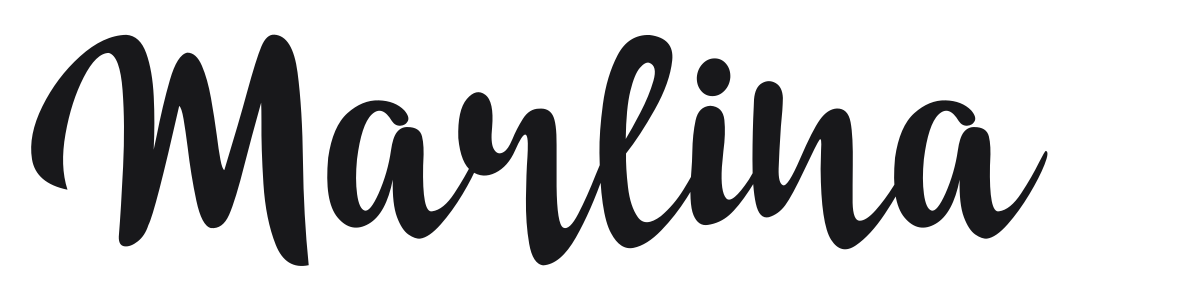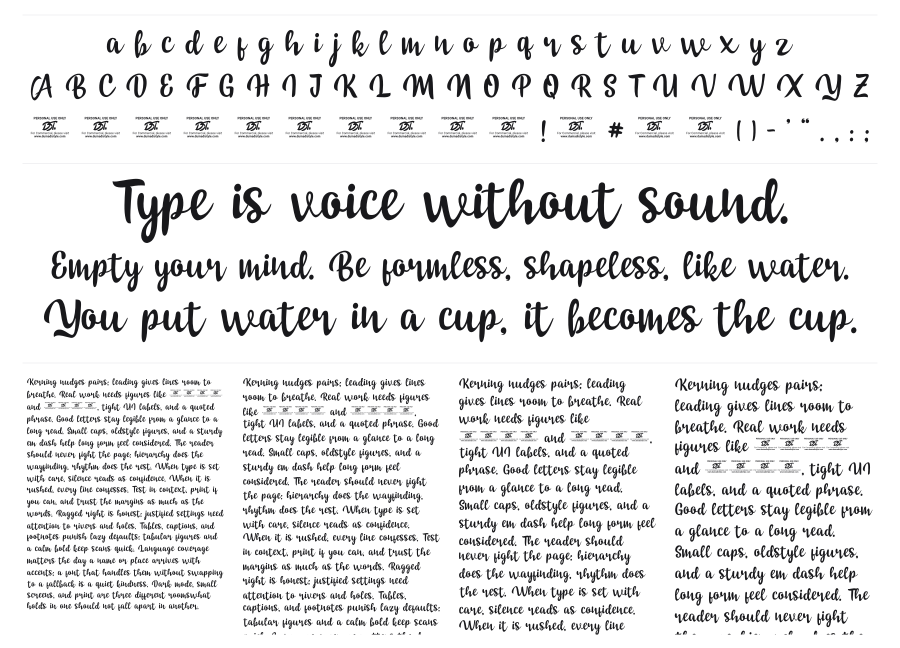
Marlina
Marlina is a bold casual brush script with lively bouncing rhythm and confident, flowing strokes. The high contrast between thick downstrokes and wispy hairlines gives it the feel of real brush lettering without looking labored. It works across branding, packaging, and editorial headlines wherever a handcrafted warmth is needed.